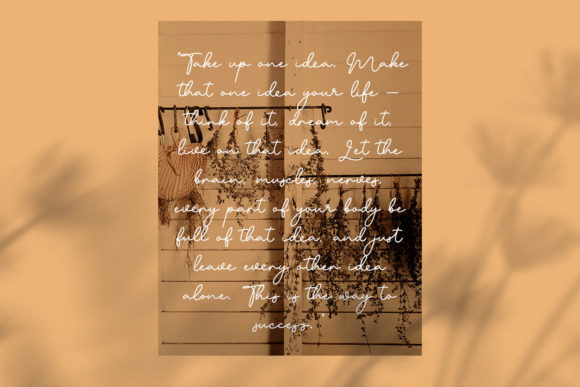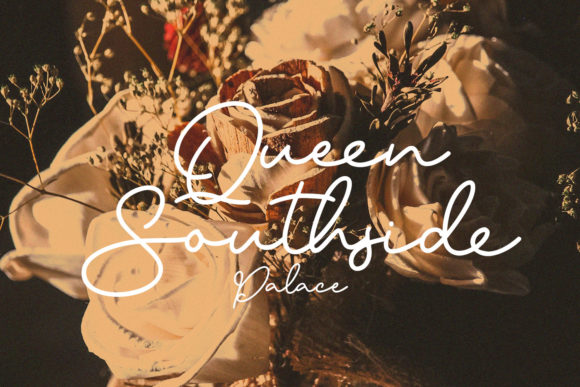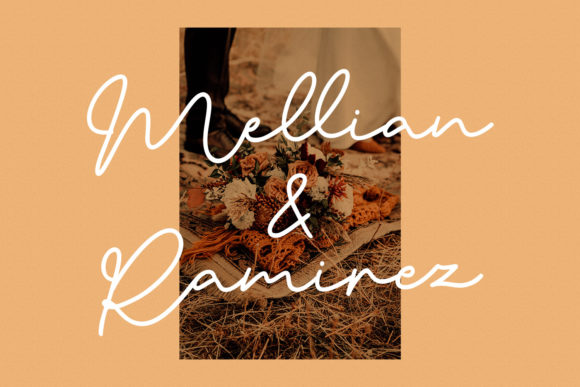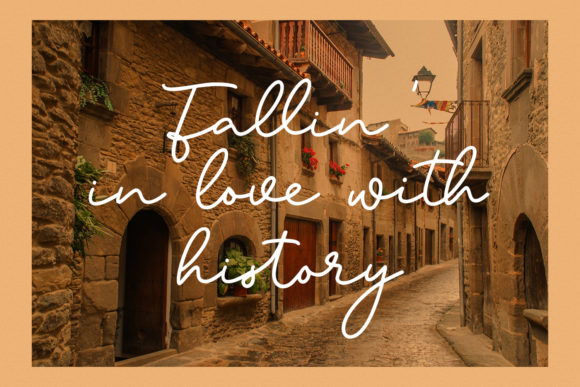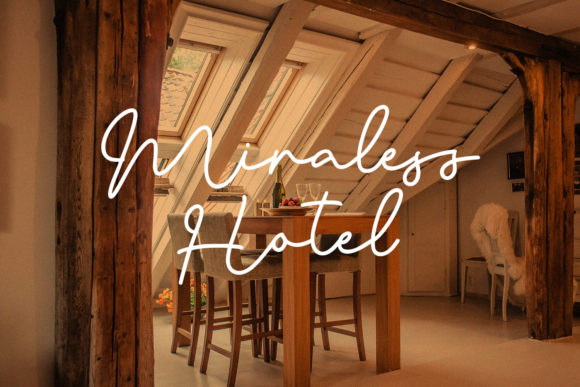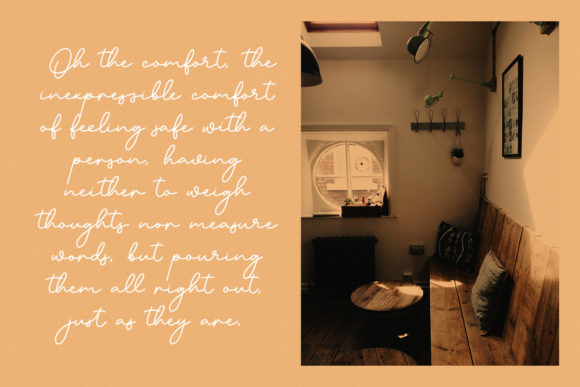
Introducing Anna Creams Font: Elevate Your Designs with Vintage Elegance
In the world of typography, fonts play a crucial role in defining the aesthetic and tone of a design. For designers and crafters looking to add a touch of vintage elegance to their projects, Anna Creams Font is an exceptional choice. This beautiful, well-balanced, and vintage-styled script font is designed to make your designs stand out, particularly in fashion branding and editorial projects.
What Makes Anna Creams Font Special?
Anna Creams Font is characterized by its smooth curves and perfectly balanced design elements. This font is not just a typeface; it’s an experience that brings a sense of nostalgia and luxury to your designs. Whether you’re working on a fashion brand’s logo, an editorial piece, or any project that requires a touch of sophistication, Anna Creams Font is sure to impress.
Key Features of Anna Creams Font
- Vintage Aesthetic: With its roots in classic typography, Anna Creams Font embodies a vintage charm that is hard to find in modern fonts.
- Smooth Curves: The font’s design is marked by smooth, flowing curves that add a level of elegance and sophistication to any text.
- Well-Balanced: Each letter is carefully crafted to ensure balance and harmony, making the font easy to read and visually appealing.
- Versatility: While it shines in fashion branding and editorial designs, Anna Creams Font’s versatility means it can be used in a wide range of projects.
Perfect for Fashion Branding
Fashion branding is all about creating an image that resonates with your target audience. The right font can make a significant difference in how your brand is perceived. Anna Creams Font, with its luxurious and vintage feel, is perfect for fashion brands looking to convey a sense of high-end quality and timeless elegance. From logos to packaging, this font can elevate your brand’s visual identity.
Ideal for Editorial Designs
Editorial designs, including magazines, blogs, and books, require fonts that are not only beautiful but also readable. Anna Creams Font strikes the perfect balance between aesthetics and readability, making it an excellent choice for headings, titles, and even body text in certain contexts. Its vintage charm can also help in creating a thematic consistency for editorial pieces focusing on fashion, lifestyle, or art.
Tips for Using Anna Creams Font
To make the most out of Anna Creams Font, consider the following tips:
- Pair it with Simplicity: Let Anna Creams Font be the focal point of your design. Pairing it with simpler fonts or a clean background can help highlight its beauty.
- Experiment with Sizes: Play around with different sizes to create a hierarchy in your design, making some elements stand out more than others.
- Use it Sparingly: While Anna Creams Font is beautiful, it’s best used sparingly to maintain its impact. Consider using it for titles or key phrases.
Anna Creams Font is more than just a typeface; it’s a design element that can transform your projects with its vintage elegance and smooth curves. Whether you’re a designer looking to elevate your fashion branding or a crafter aiming to add a touch of sophistication to your editorial designs, Anna Creams Font is a versatile and beautiful choice. Add it confidently to your projects, and you’ll love the results.
Incorporating Anna Creams Font into your design toolkit can open up new possibilities for creating visually stunning and thematically consistent projects. Its unique blend of vintage charm and modern usability makes it a valuable asset for any designer or crafter looking to make a statement with their work.